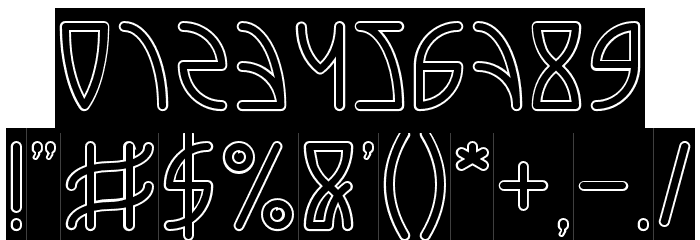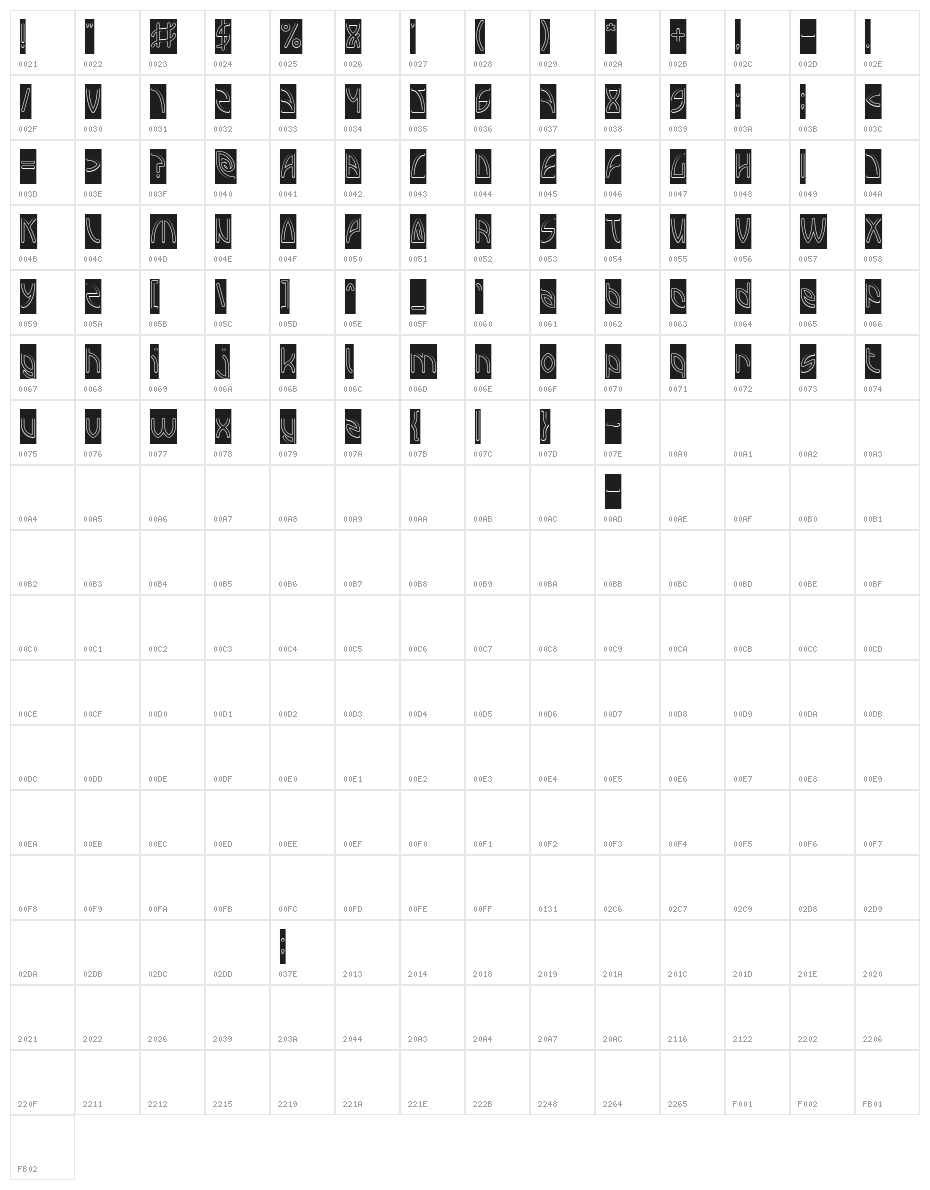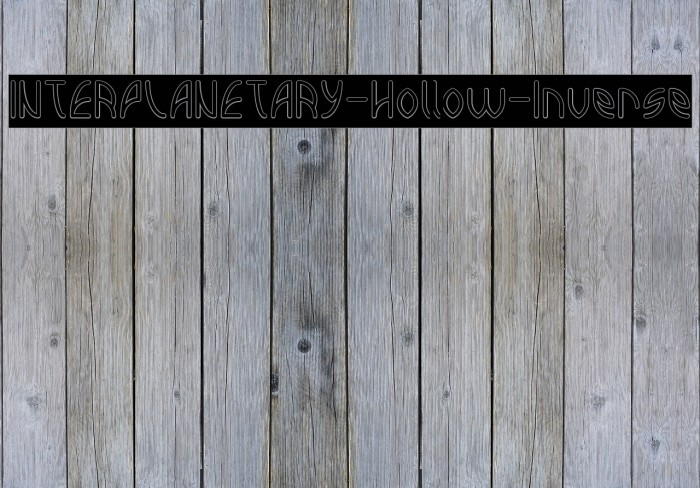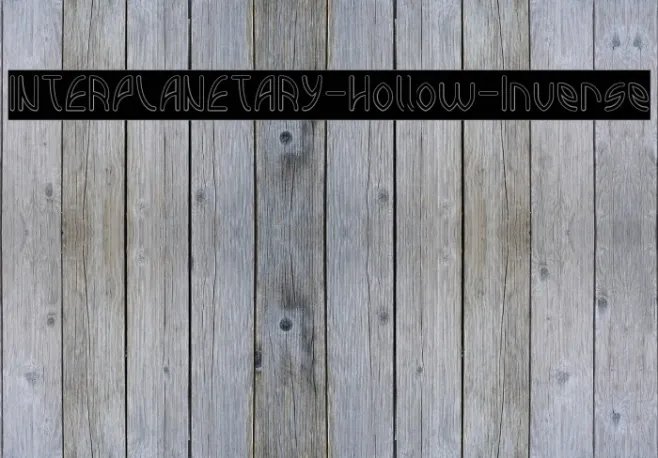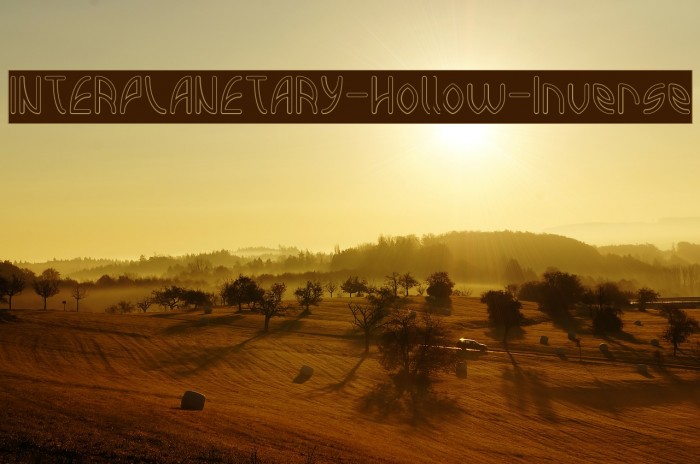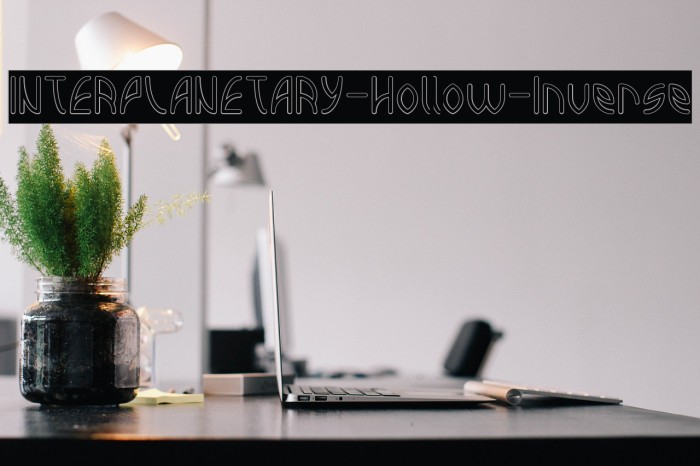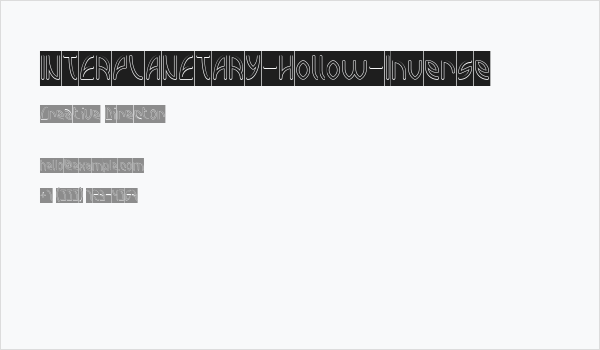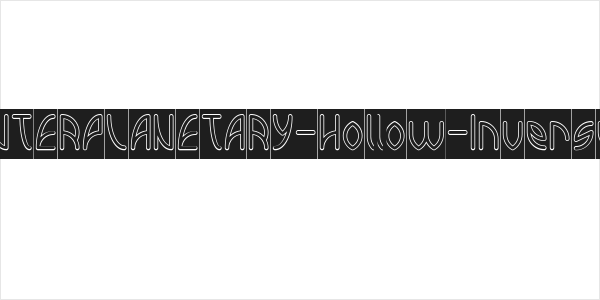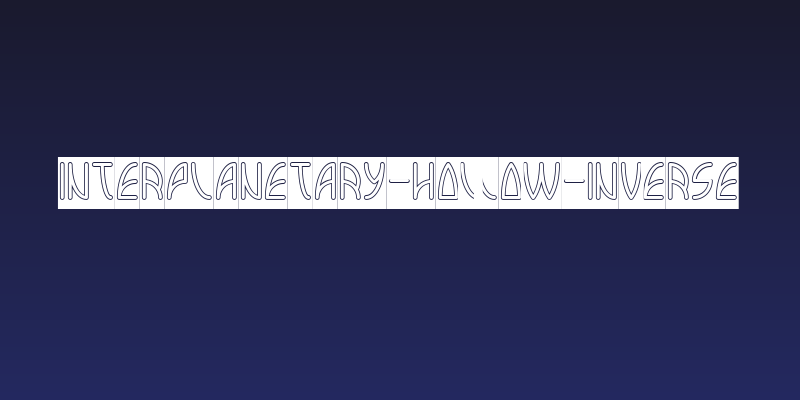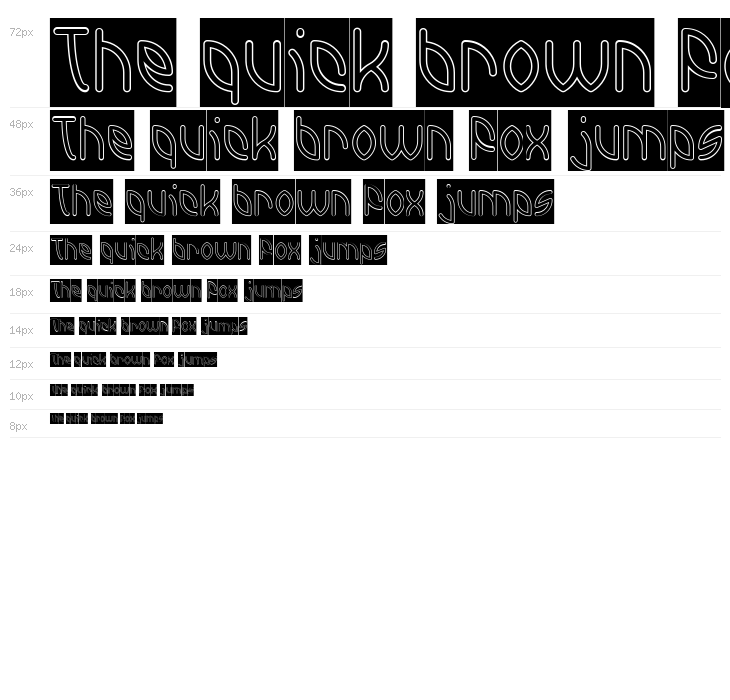
INTERPLANETARY-Hollow-Inverse Font
INTERPLANETARY-Hollow-Inverse Description
This font features a unique hollow design with an inverse style, creating a futuristic and space-inspired appearance. The characters are outlined, giving them a light and airy feel while maintaining a bold presence. The uppercase and lowercase letters share a consistent design language, with smooth curves and geometric shapes. Numbers and special characters are equally stylized, maintaining the overall aesthetic. The font's distinct style makes it ideal for creative and modern applications, where a standout, unconventional look is desired.
| Proposed Projects | Ideal for sci-fi themed projects, modern branding, posters, and digital media where a futuristic look is desired. |